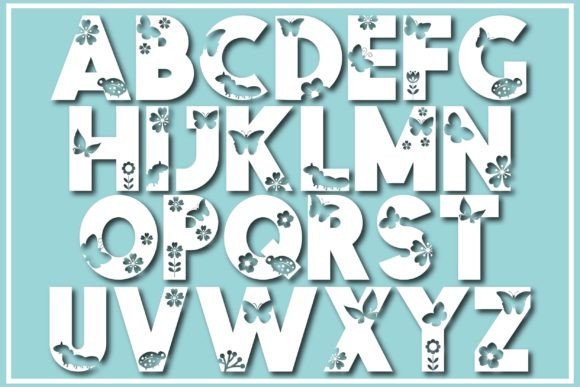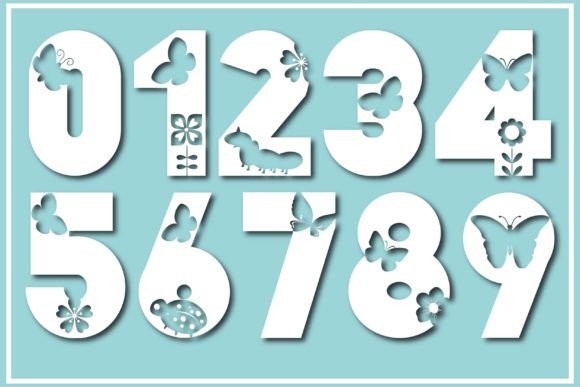
The Magical World of Butterfly Lover Font
I’ll never forget the time I was working on a children’s book project, and I just couldn’t find the right font to bring the story to life. The client wanted something playful, yet elegant, and I was on a mission to deliver. That’s when I stumbled upon the Butterfly Lover font, and it was love at first sight! 💕 In this article, I’ll share my experience with this beautiful font, its features, and how to make the most of it in your designs.
An Honest Review of Butterfly Lover Font
- 💫 The font’s bold yet whimsical design makes it perfect for a variety of projects, from cartoon-related designs to children’s games and quotes.
- ✅ The unique, hand-drawn feel of Butterfly Lover adds a touch of personality to any design.
- 🌈 The font comes with a range of OpenType features, glyphs, and stylistic alternates, giving you plenty of creative options.
- ⚠️ Some users may find the font a bit too bold for certain projects, so it’s essential to experiment with different sizes and colors.
- ⚠️ As with any decorative font, it may not be the best choice for body text or long paragraphs.
The Backstory of Butterfly Lover Font
The Butterfly Lover font was designed with the intention of capturing the whimsical and carefree spirit of a butterfly. The designer aimed to create a font that would bring a touch of elegance and playfulness to any design. With its bold yet delicate lines, Butterfly Lover font is perfect for designers who want to add a bit of magic to their creations.
Q: What type of projects is Butterfly Lover font best suited for?
A: Butterfly Lover font is perfect for cartoon-related designs, children’s games, quotes, titles, brand names, book covers, posters, and any other project that requires a touch of whimsy and elegance.